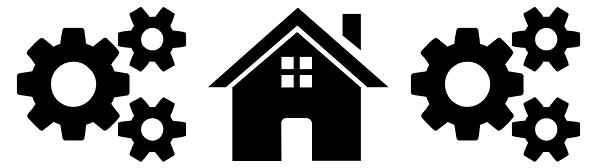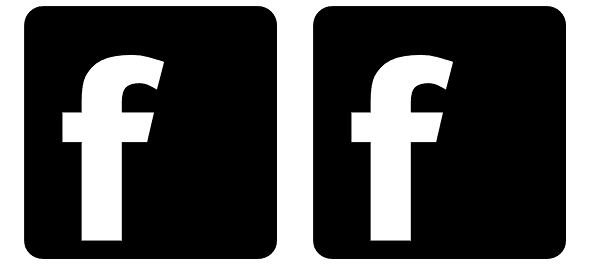
Iconized
We love webicons! Iconized is an extensive icon-set for display application. The font contains more than 220 icons like arrows, filetype-, media-, eCommerce-, network and devices-, contact-, service navigation- and social network-icons with a whole...